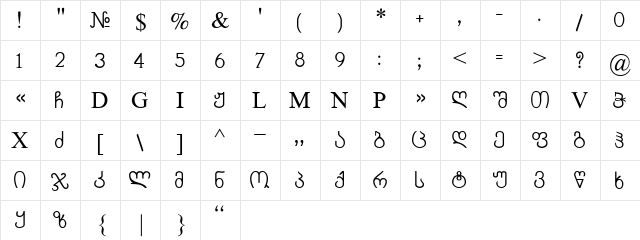
Chveulibrivi Mtavr TT Regular
Design Context for Chveulibrivi Mtavr TT Typeface
Chveulibrivi Mtavr TT is a composed and adaptable typeface that performs quietly and consistently across a wide range of design contexts.